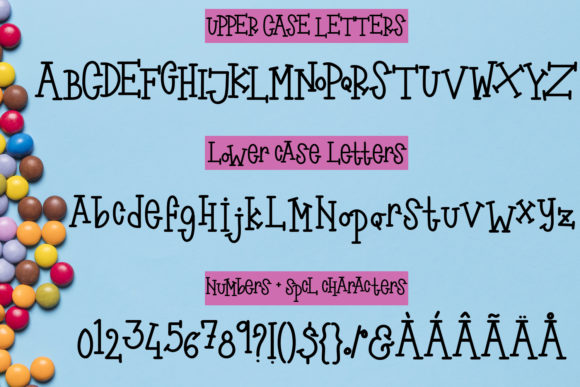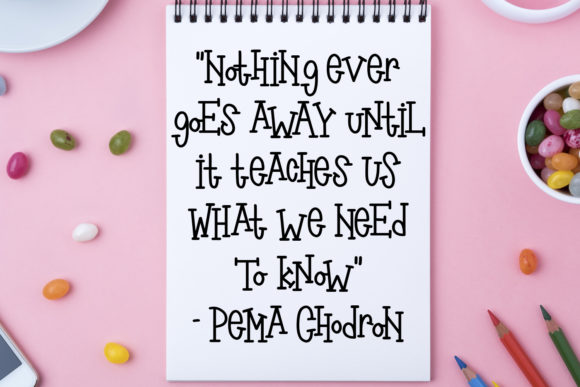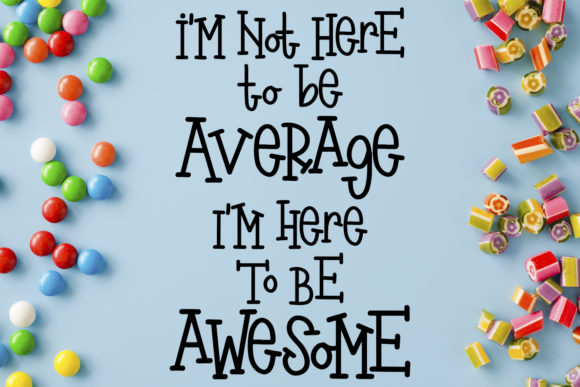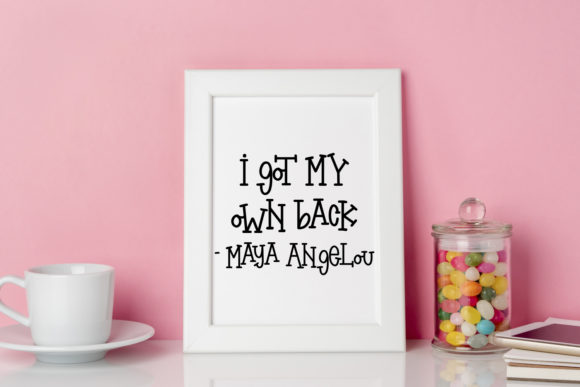
Introduction to Smartie Pants Font Font
Fonts play a crucial role in design, and the Smartie Pants Font font is a typeface that brings both character and versatility to any project. Whether you’re working on a branding project, a website, or a print design, the Smartie Pants Font font offers a unique style that can elevate your work.
Smartie Pants is a sweet and incredibly cute display font thatβs great for giving any design project that playful and childlike feel.
Smartie Pants is a sweet and incredibly cute display font thatβs great for giving any design project that playful and childlike feel!
Key Features of Smartie Pants Font Font
Why Choose Smartie Pants Font Font?
The Smartie Pants Font font is more than just a typeface β it’s a design tool that helps you communicate your message with style and clarity. Its unique character set and versatile design make it suitable for a wide range of applications, from elegant invitations to bold headlines.
With its carefully crafted letterforms and balanced proportions, the Smartie Pants Font font ensures readability and visual appeal across all mediums.
What makes Smartie Pants Font font special?
The Smartie Pants Font font stands out with its unique design, exceptional readability, and versatility across various design applications.